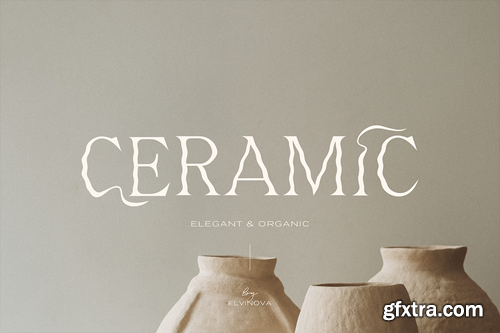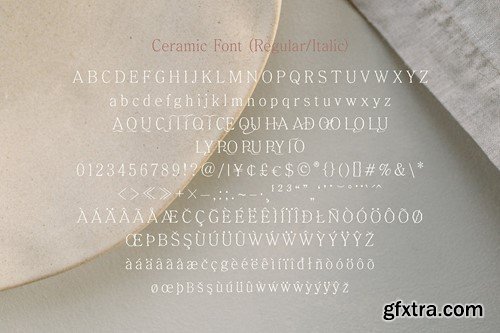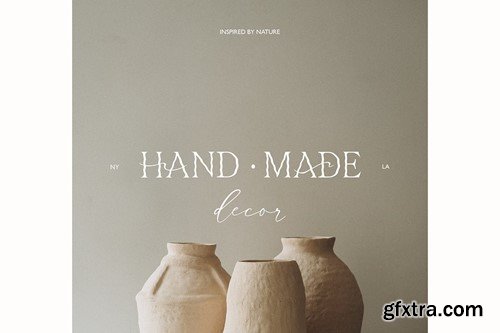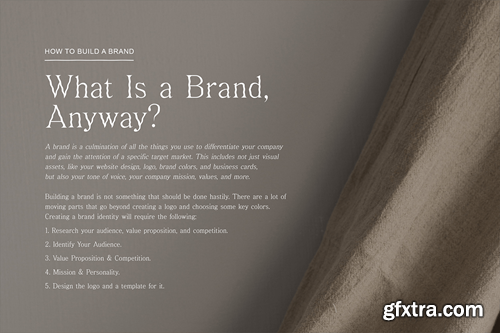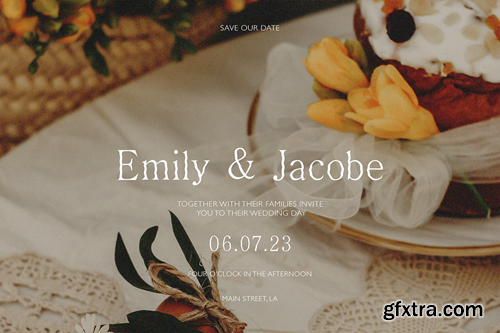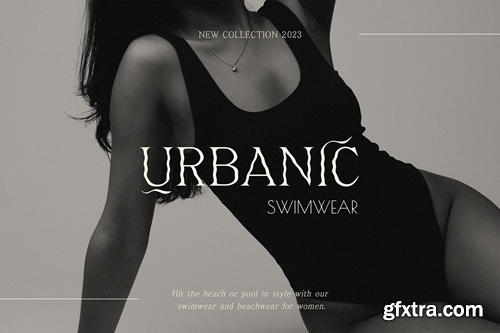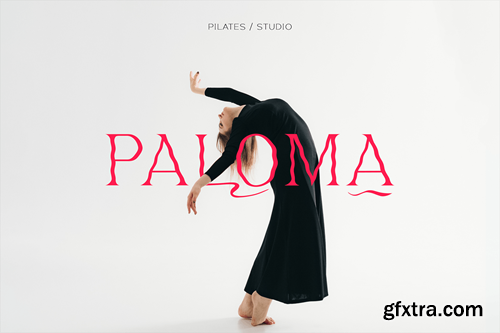
Ceramic Font
Modern elegant font with beautiful curves. Good for handicraft branding, wedding, dance school, design studio, etc. The font comes in the OTF and TTF formats. Regular & Italic. Language support: English, German, French, Spanish, Italian, Danish, Finnish, Portuguese, Swedish, Norwegian, Dutch, Indonesian, Luxembourgish, Icelandic, Cornish, Hungarian, Filipino, Turkish. I hope you enjoy!